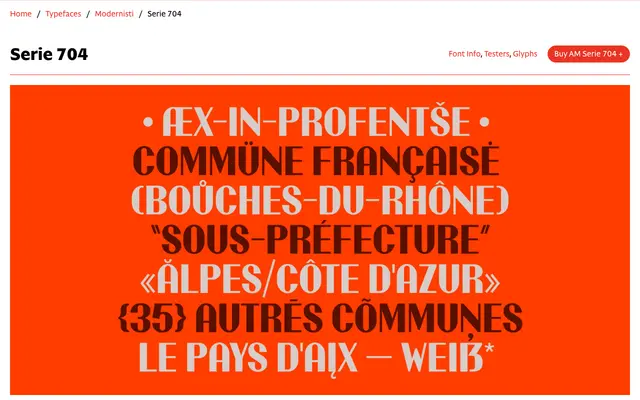
AM Serie 704
CAST · Stefano Baldassari · 2024
A digital revival of a bold condensed all-caps face originally released by Milan's Xilografia Milanese in the late 1930s, faithfully reconstructed with subtle corrections by Stefano Baldassari.
The original Serie 704 was a condensed sanserif distinguished by strong thick/thin contrast and modular geometric construction, with flattened inner curves and conspicuously thick terminal strokes on C, G and S. The revival, produced by Stefano Baldassari for CAST, stays close to the source while adding a horizontal bar to G, adjusting the ampersand to cap height, and expanding the character set for contemporary use. The high contrast recalls Nebiolo typefaces such as Quirinus and Hastile, situating the face in a specific tradition of Italian display type from the interwar period.
A bold all-caps condensed sans with strong thick/thin contrast and geometric, modular construction; its high contrast and condensed proportions place it firmly in the display category, reviving a late-1930s Italian wood type tradition.